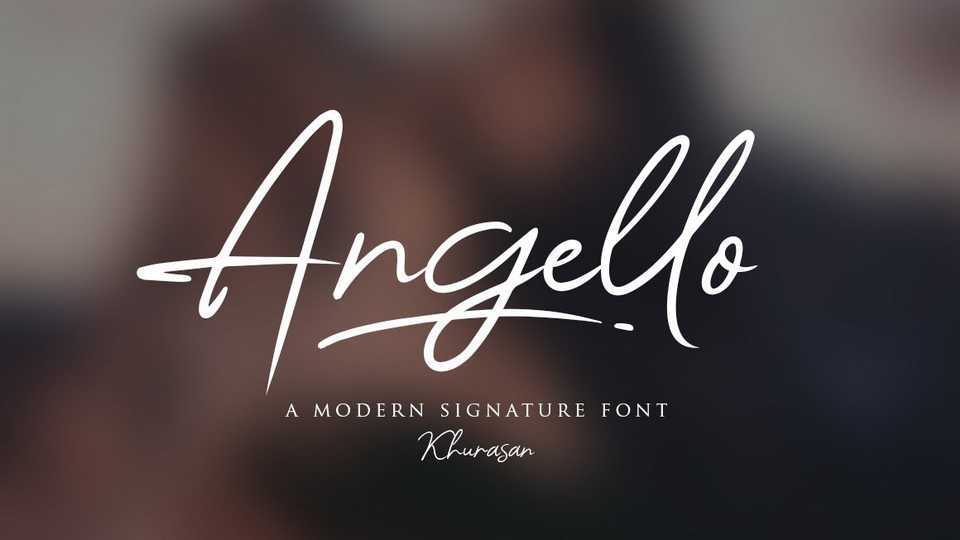
Download Angello font, a casual signature script that has very fresh and unique style handmade. Angello is perfectly suited to logo, stationery, poster, apparel, branding, wedding invitation, card, tagline, layout design, and much more!!